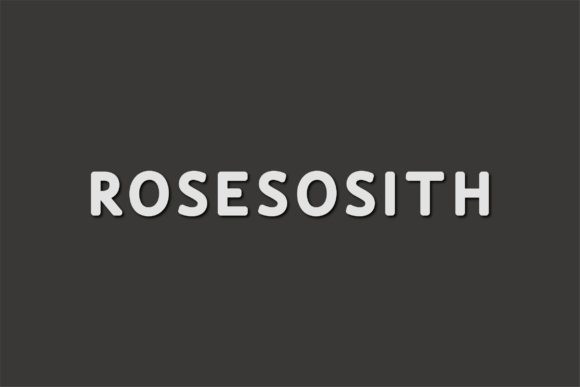
Prepare to be entranced by the Rosesosith Font, a modern masterpiece from the creative mind of A Christie. This sans serif font exudes elegance and sophistication, making it the perfect choice for ambitious designers seeking a touch of class for their projects. Step into a world of visual allure and let Rosesosith captivate your audience.
With its clean lines and graceful curves, Rosesosith adds a touch of timeless beauty to any design. Whether you're crafting stunning logos, elegant wedding invitations, or eye-catching advertisements, Rosesosith elevates your creations to new heights of sophistication. Its versatility knows no bounds, making it the perfect font for a wide range of projects.
Unleash your creativity and let Rosesosith transform your words into works of art. Its crisp and legible design ensures that your message shines through, leaving a lasting impression on your readers. Experience the joy of seamless readability and effortless communication as Rosesosith enhances the impact of your words.
Rosesosith is more than just a font; it's an invitation to step into a world of boundless creativity. Its elegant charm breathes life into your designs, evoking emotions and capturing hearts. Each letter dances across the page, telling stories and leaving an indelible mark on the minds of your audience.
Don't settle for ordinary fonts; embrace the extraordinary with Rosesosith. Let its timeless beauty elevate your designs to new heights of elegance and sophistication. Discover the power of Rosesosith today and witness the transformation of your creative visions into stunning realities.